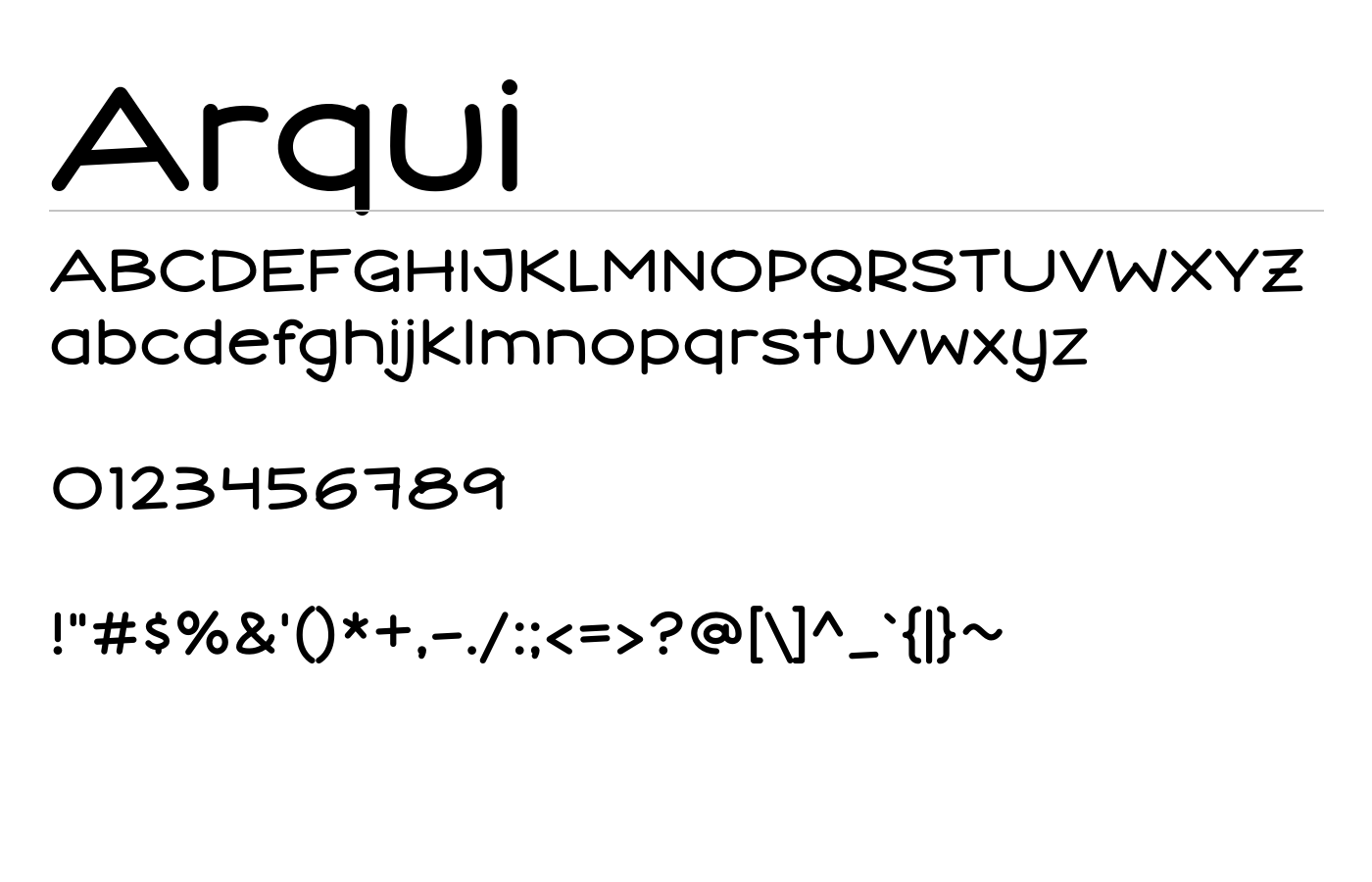
Arqui is a friendly and modern sans serif font with a casual, handwritten feel. Its smooth, rounded letterforms and consistent medium weight make it approachable and easy to read, while its slightly playful curves add personality without sacrificing clarity. This font works well for branding, children’s content, informal editorial designs, and any project that benefits from a warm, inviting style.
| Font family | Arqui Font |
| Designer | Juan Miguel Castillo |